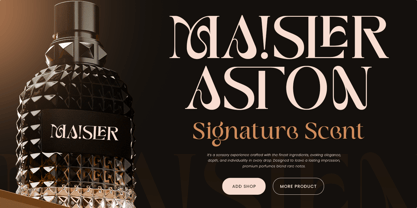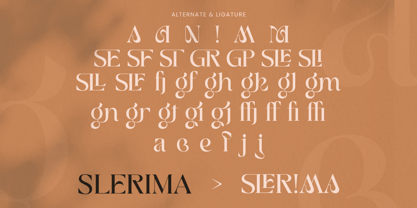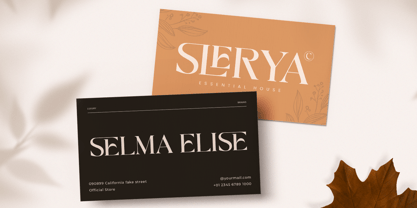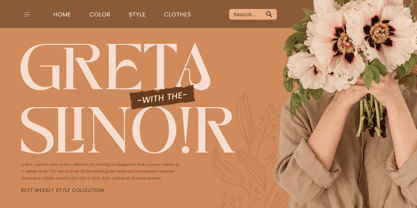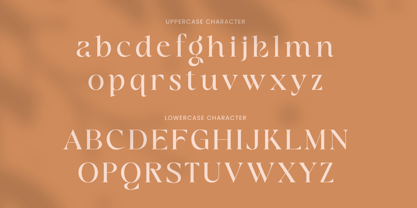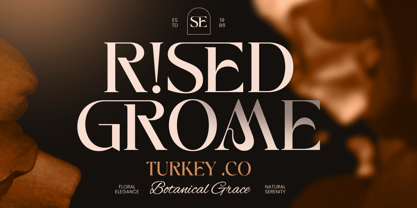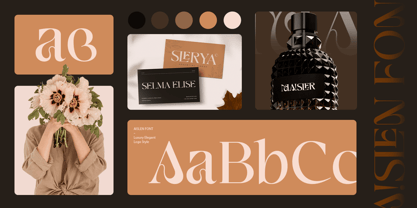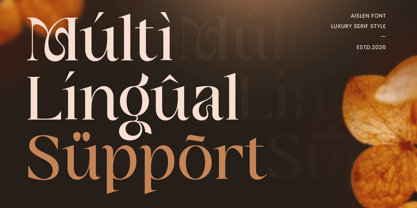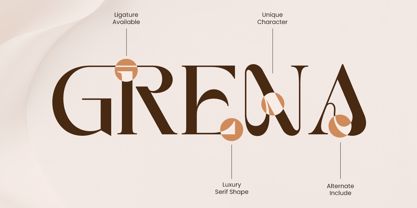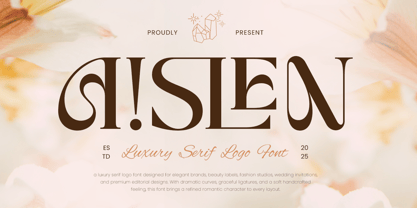
Aislen
A família de fontes Aislen foi desenhada por Zamroni Hamzah e publicada pela Sensatype Studio. Aislen contém 1 estilos. Saiba mais sobre esta família
AISLEN is a luxury serif logo font crafted to bring sophistication, elegance, and premium character to your visual identity. With refined serif details, graceful contrast, and balanced proportions, this typeface is perfect for high-end logos, fashion branding, editorial layouts, packaging, and luxury design projects.
Designed for brands that value timeless beauty and modern refinement, AISLEN offers a polished typographic presence that feels exclusive and memorable. Its elegant letterforms work beautifully for fashion labels, beauty products, wedding stationery, boutique identities, magazine headlines, and premium lifestyle branding.
Whether used for a logo mark, editorial title, invitation, or luxury product packaging, AISLEN delivers clarity, style, and sophistication across both print and digital applications.
AISLEN – Luxury Serif Logo Font Features
• Elegant luxury serif design for premium logo branding
• Perfect for fashion, beauty, editorial, packaging, and lifestyle brands
• Refined letterforms with sophisticated visual balance
• Ideal for logos, invitations, magazine titles, and high-end layouts
• Uppercase, lowercase, numerals, and punctuation included
• OpenType features for advanced typographic styling
Create timeless luxury with AISLEN – the ultimate serif logo font for elegant branding, premium packaging, and refined editorial design. ✨👑